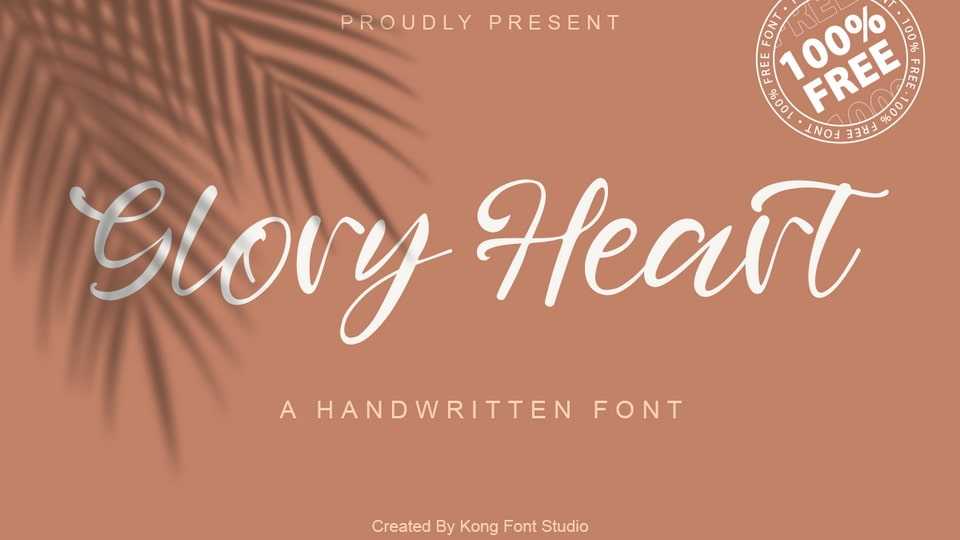
Download Glory Heart font, a lovely script typeface with charming flowing characters. Handcrafted with care, Glory Heart font is well suited to create everything from wedding invitations to logos – all with an authentic feel.